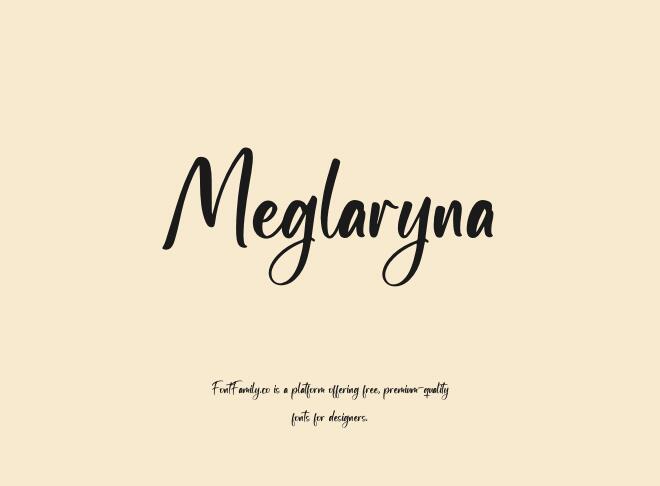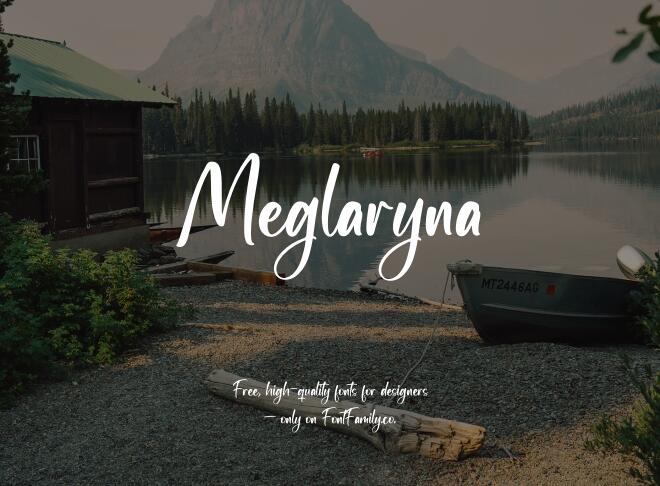
Meglaryna Font
Meglaryna Font, designed by Creative Tacos, is a modern and elegant handwritten typeface. Its clean and unique style makes it ideal for branding, logo design, and digital lettering projects. Meglaryna Font is a versatile choice that fits many design styles, from minimalistic to playful, while maintaining a high level of readability. Compared to other fonts, Meglaryna stands out with its smooth curves and well-balanced letters. This font is perfect for designers who are looking for a typeface that can add a personal touch to their projects while keeping a professional look. Meglaryna Font is free for personal use, making it a great choice for hobbyists and professionals alike.